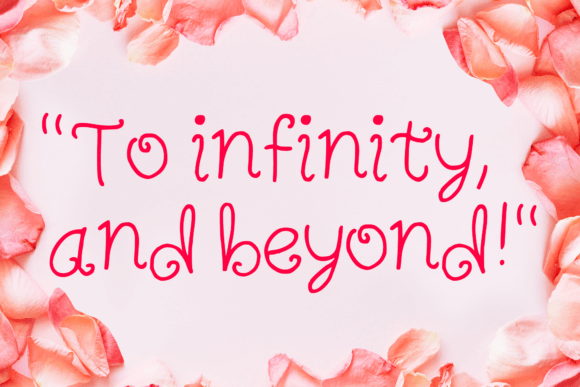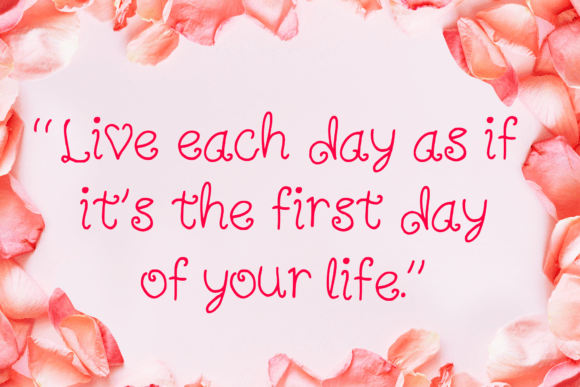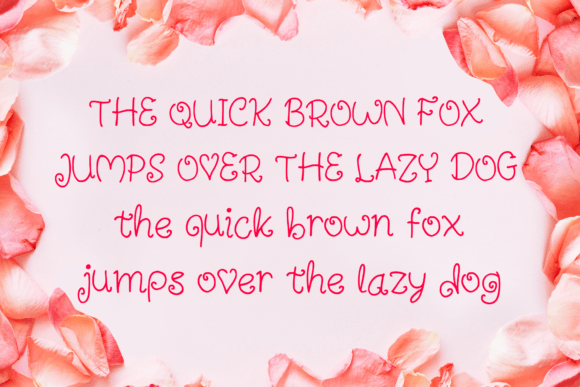
Lovely Valentine
About Lovely Valentine
Lovely Valentine is a cute and quirky handwritten Valentine’s Day font. You can use it for anything ranging from t-shirts, kids’ book designs, and greeting cards to stickers and posters, or anything that needs a casual touch. Fall in love with its incredibly versatile style, and use it to create lovely designs!